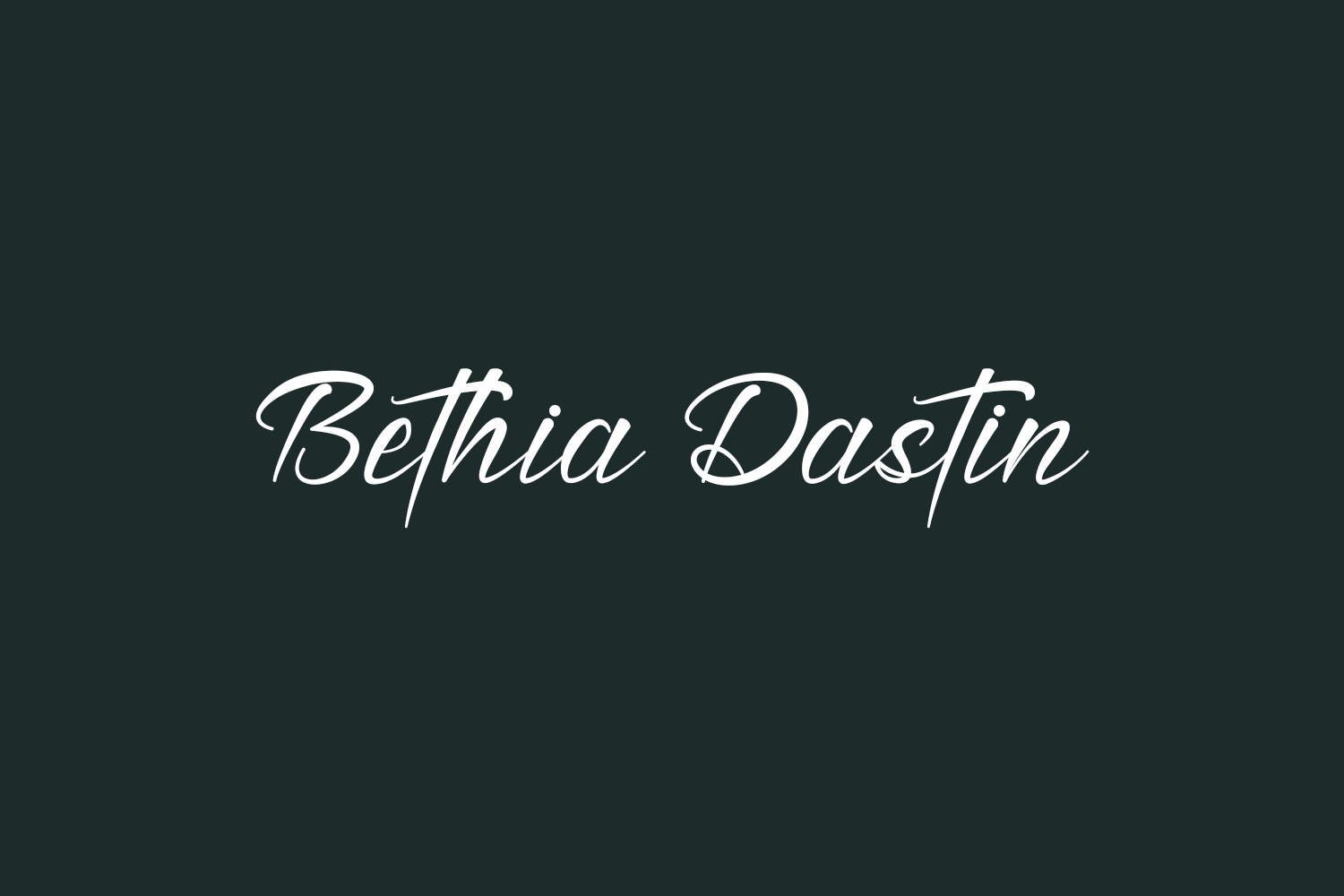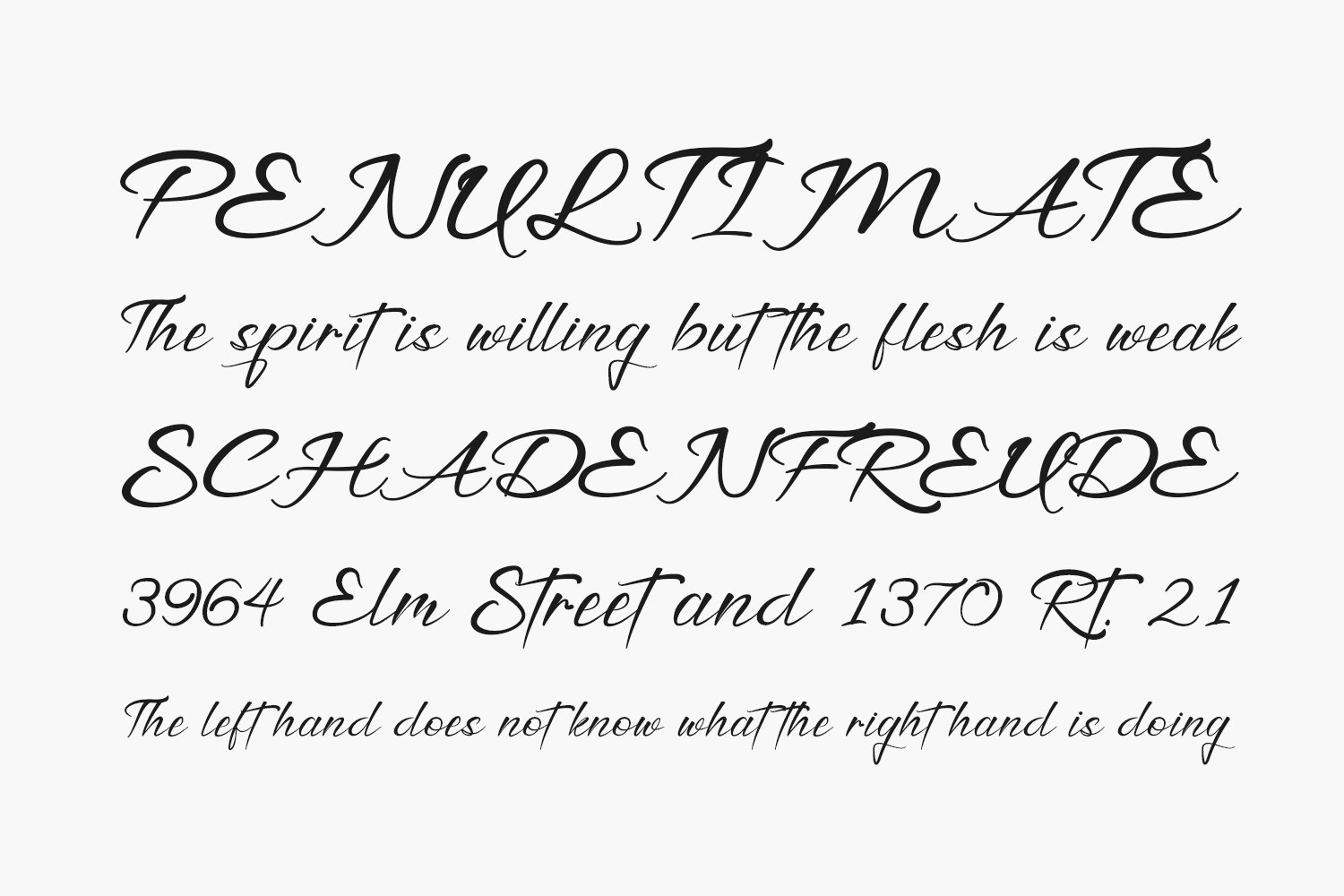
Bethia Dastin Free Font Family is a modern handwritten script font that brings a unique and personal touch to your designs. It’s playful, yet elegant curves and strokes will add a touch of sophistication to any project, making it perfect for branding, invitations, and social media graphics. The font’s natural flow gives it a hand-written feel, while its clean lines ensure it remains legible and easy to read. With its versatile style, Bethia Dastin is the perfect choice for anyone looking to add a touch of charm and individuality to their designs.